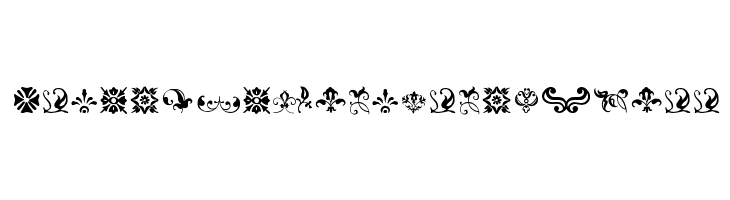
A bold, shattered glass-inspired font with a dynamic and edgy appearance.
A decorative, hand-drawn font with a gothic flair and flowing, cursive-like characters.
A bold, decorative font with a hand-drawn, medieval-inspired style.
A decorative, hand-drawn font with a gothic and calligraphic influence.
A bold, playful font with a quirky, hand-drawn style.
A bold, hand-carved font with a linocut print aesthetic.
A bold, geometric font with a futuristic and mechanical style.
A dynamic, handwritten font with bold, sweeping strokes and a playful, artistic style.
A bold, rugged font with a handcrafted, vintage appearance.
A bold, fragmented sans-serif font with a modern, edgy aesthetic.
A bold, fragmented font with geometric shapes and high contrast, perfect for artistic projects.
A bold, blackletter-style font with sharp, angular lines and a medieval aesthetic.
A bold, condensed font with a modern and impactful style.
A bold, modern font with tall, narrow characters and consistent stroke width.
A bold, geometric font with uniform strokes and tight spacing, ideal for modern designs.
A bold, geometric font with rounded corners and a modern style.
A bold, italicized font with a modern, dynamic style.
A bold, italicized font with a modern and dynamic style.
A classic serif font with bold strokes and high contrast, ideal for formal use.
A classic italic typeface with elegant curves and delicate serifs.
A dynamic and energetic script font with fluid, sweeping strokes and a modern calligraphic style.
A dynamic, cursive script font with bold, flowing strokes and lively contrast.
A bold, high-contrast font with a modern and dramatic style.
A bold, geometric font with a modern, futuristic style.
A bold, dynamic font with thick, rounded strokes and a playful, energetic style.
A bold, angular font with a futuristic and dynamic style.
A playful and bold font with a unique blend of curves and sharp edges.
A bold, playful font with whimsical curves and moderate contrast.
( Fonts by Alit Suarnegara )
A modern, handwritten script font with a flowing, artistic style.
( Alit Design - Alit Suarnegara - www.alitdesign.net )
A modern, cursive font with a handwritten, elegant style.
( Fonts by Alit Design - Alit Suarnegara - Personal-use only. For commercial use please contact owner. )
A lively, handwritten font with a fluid and expressive style.
A playful, handwritten font with rounded, informal letterforms.
A bold, geometric font with uniform stroke widths and a modern design.
A lively and elegant script font with flowing, cursive letterforms.